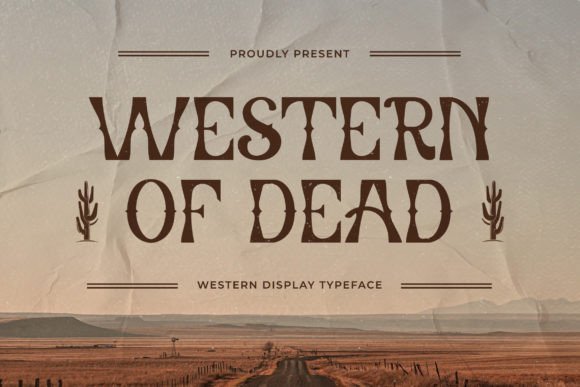
Are you searching for a font that will give your designs a unique western look? Look no further than Western of Dead, a stunning slab serif font created by TypeFactory. With its vintage and grunge appeal, this font is the perfect choice for designers seeking a touch of beauty and a whole lot of character.
One of the standout features of Western of Dead is its versatility. It's ideal for a range of creative projects, from retro and grunge-related designs to children's games, book covers, posters, and more. But where this font really shines is in its ability to elevate quotes and titles to new heights of emotional impact.
With Western of Dead, your words will jump off the page and resonate with your audience on a deep, emotional level. Whether you're crafting a brand name or designing a poster for an event, this font has the power to captivate and engage.
Beyond its aesthetic appeal, Western of Dead is also easy to use. Its clean lines and bold lettering make it easy to read, even at smaller sizes. And with its keyword of "Font Style For Quotes," this font is specifically designed to help you create stunning typography that will leave a lasting impression.